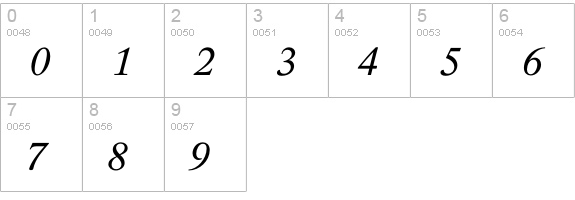
Lido STF CE Regular Italic Font Details
Lido STF CE Regular Italic is the standard, neutral, italic variant in the Lido typeface family \xE2\x80\x94 well suited to general body text, paragraphs, and standard typographic work.
Lido STF CE Regular Italic font is a sophisticated and elegant typeface that exudes a sense of modernity and style. With its sleek design and subtle slant, this font is perfect for adding a touch of sophistication to your projects. The italicized characters add a dynamic flair, making your text stand out with a touch of flair. Best of all, Lido STF CE Regular Italic font is available for free download at FontsMarket.com. This means you can easily access this beautiful typeface for your personal or commercial projects without any cost. Don't miss out on the opportunity to enhance your designs with the timeless elegance of Lido STF CE Regular Italic font - download it now and elevate your typography game today!